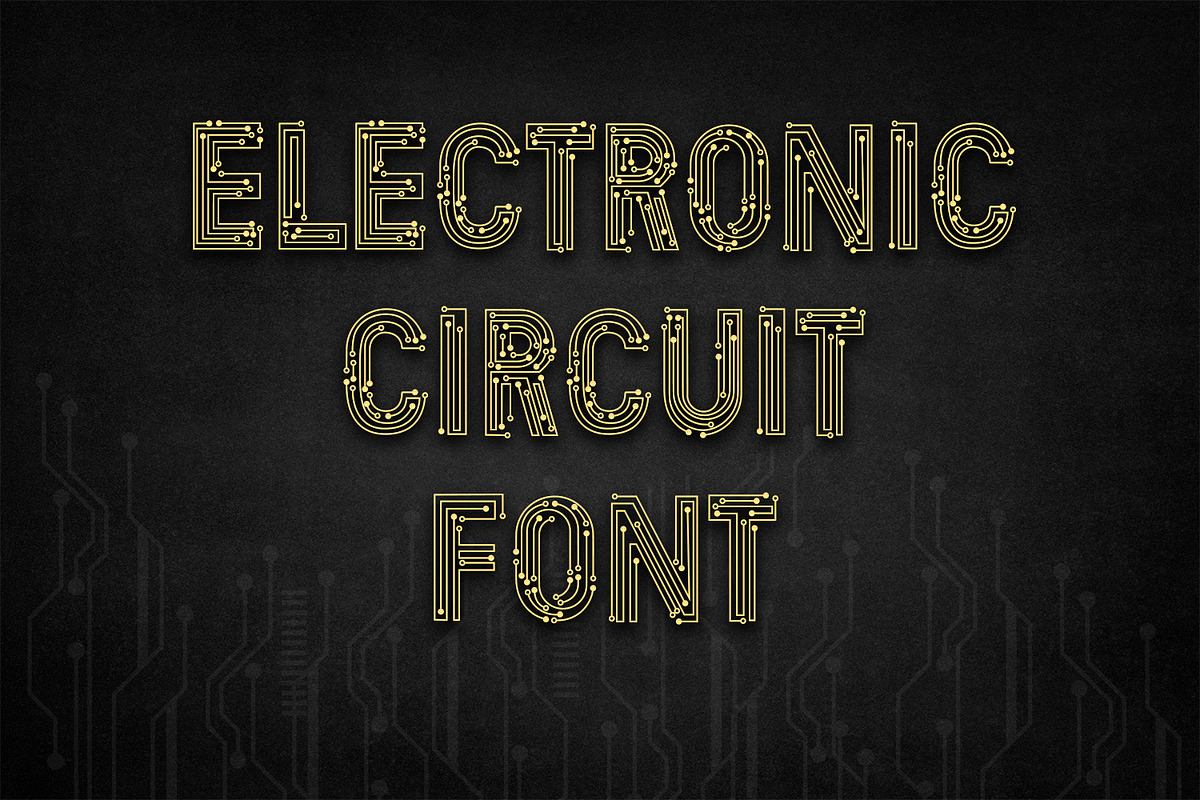
Electronic Circuit Font Free Download
Electronic Circuit Font Free Download is a futuristic and tech-inspired display typeface designed to mimic the intricate pathways of electronic circuits. With its angular lines, digital aesthetics, and sci-fi vibes, this font is perfect for technology branding, gaming titles, circuit board illustrations, coding-themed graphics, and STEM educational materials.
Every letter in Electronic Circuit Font Free Download feels like a part of a high-tech blueprint—ideal for projects that aim to convey innovation, energy, and digital sophistication. Whether you're working on a tech startup logo or a science fair poster, this font brings that sleek, wired-up look to your designs.